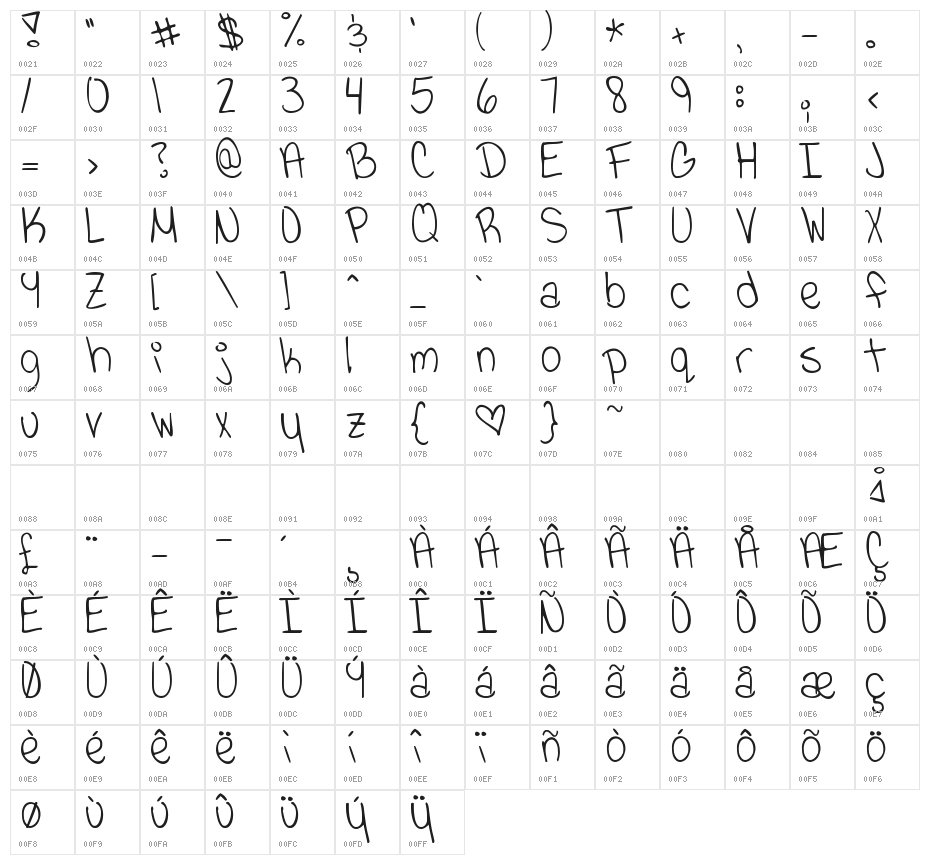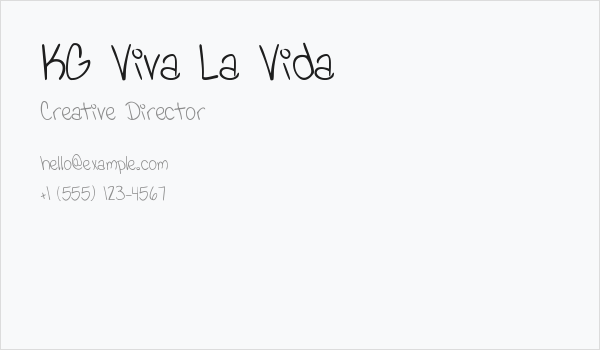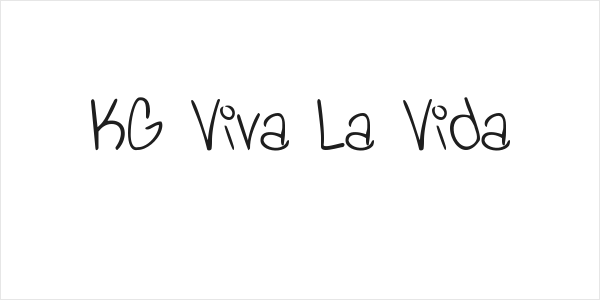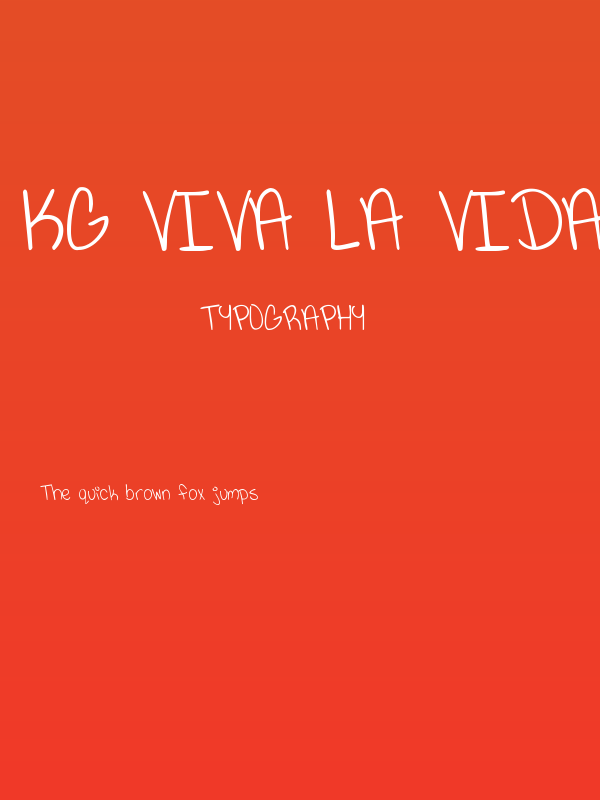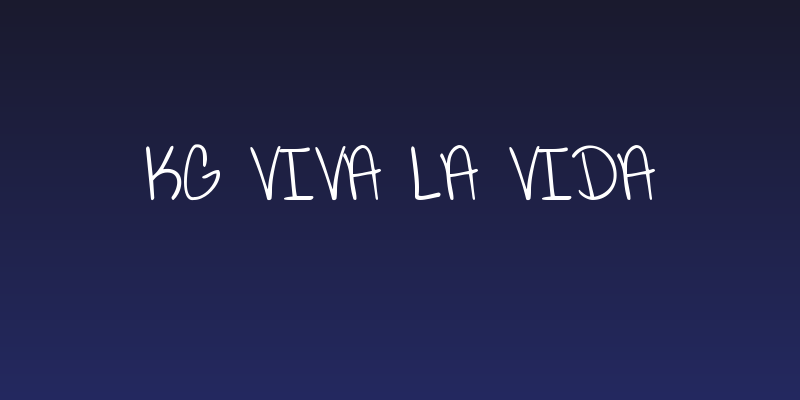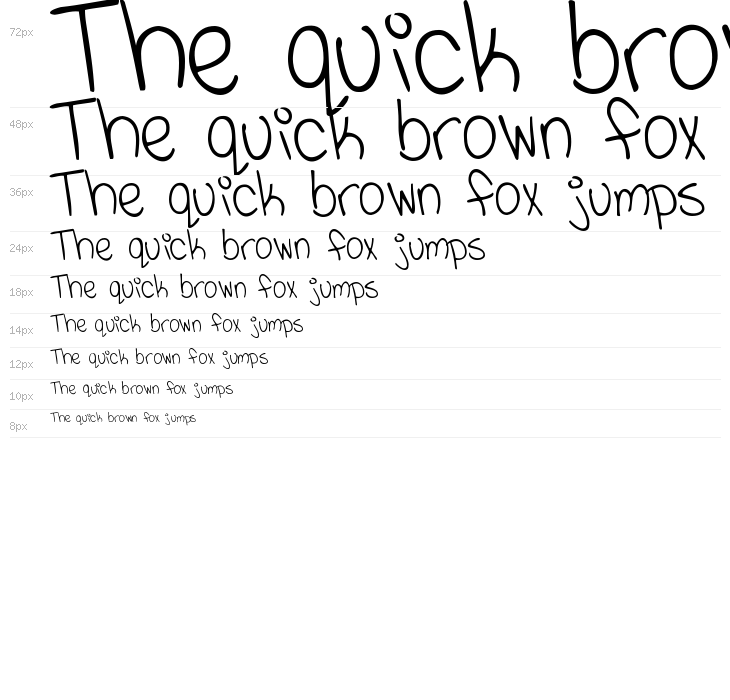
KG Viva La Vida Font
KG Viva La Vida Description
This playful and whimsical font features a handwritten style with a casual, friendly appearance. The letters are slightly irregular, adding a personal touch that mimics natural handwriting. The uppercase and lowercase letters maintain a consistent flow, with rounded edges and a slight slant that enhances its informal charm. The numbers and special characters follow the same style, ensuring uniformity across all glyphs. This font is ideal for projects that require a touch of personality and warmth, such as invitations, greeting cards, or playful branding materials.
| Proposed Projects | Ideal for invitations, greeting cards, playful branding, and personal projects. |